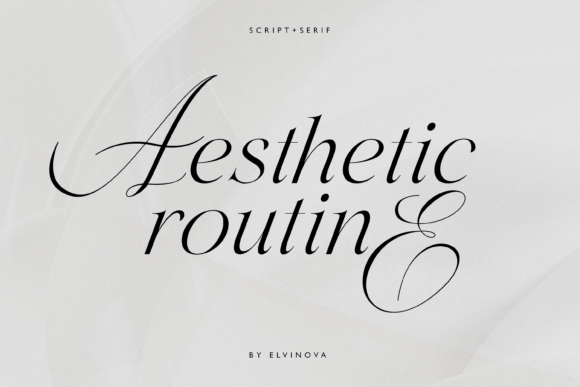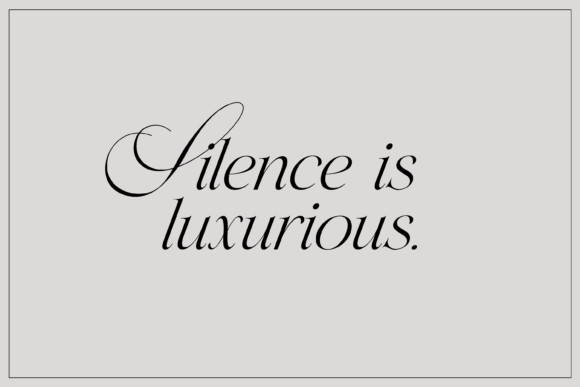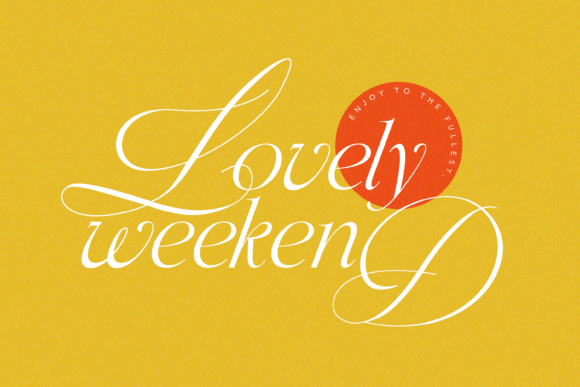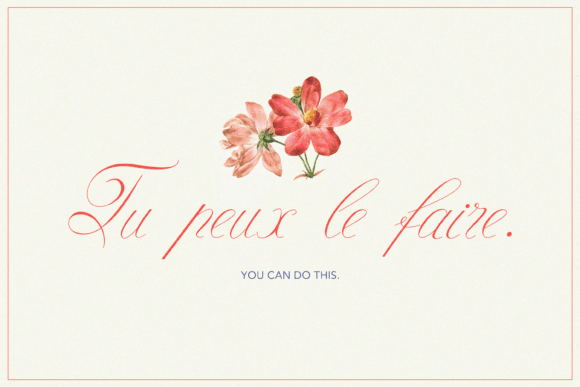
Aesthetic Routine Duo Font
About the Aesthetic Routine Duo Font
Let us introduce you to Aesthetic Routine Duo Font, where timeless design meets modern craftsmanship. Introducing Aesthetic Routine Duo, an exquisite handwritten font duo that captures the essence of elegance in every stroke. Ideal for personalized branding, wedding invitations, and bespoke stationery, this font exudes charm and sophistication. Embrace the artistry of Aesthetic Routine to add a bespoke touch to your designs. With its fluid curves and refined grace, this font duo is the epitome of elegance, perfect for creating a unique and stylish impression.
Aesthetic Routine Duo’s elegant, flowing forms make it a superb choice for projects requiring a touch of refined sophistication. It excels in branding applications such as logos, short taglines, and high-end packaging where its handcrafted quality shines. Use it sparingly in invitations or short-form website copy, but avoid extensive body text.
This font’s personality is undeniably sophisticated and charming, yet also approachable. It would be ideal for brands focused on luxury goods, artisanal products, or bespoke services. For a balanced design, pair it with a clean sans-serif like Montserrat for body copy or a geometric sans-serif like Futura for a more modern feel.
Consider pairing it with a delicate serif like Playfair Display for a classic, timeless look, or a contrasting script font for added flair, but always use the script sparingly to avoid overwhelming the design. Avoid pairing with overly bold or playful fonts, as this could detract from its inherent elegance.
Aesthetic Routine Duo Font Usage Examples
Aesthetic Routine Duo Font Example